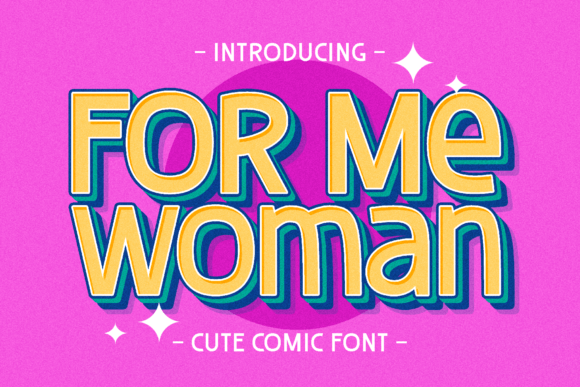
Discover the Vibrant World of For Me Woman Font: A Fun Display Font with Eastern European Flair
Are you looking for a font that exudes joy, fun, and excitement? Look no further than For Me Woman, a very fun display font designed by 7ntypes. This charming font is perfect for conveying a youthful appeal, making it an ideal choice for children’s books, comic books, and attention-grabbing titles. In this article, we’ll dive into the world of For Me Woman Font and explore its unique characteristics, features, and uses.
Key Features of For Me Woman Font
- Eastern European Authenticity: For Me Woman Font is accentuated with elements of Eastern European authenticity, giving it a unique and distinctive look.
- Bold and Bold Textures: This font features bold, bold textures that make it perfect for conveying joy, fun, and excitement.
- Youthful Appeal: The font’s design exudes a youthful appeal, making it perfect for children’s books, comic books, and other projects targeting a young audience.
- Unique Characteristics: For Me Woman Font has a distinctive look that sets it apart from other fonts, making it a top choice for bold, attention-grabbing titles.
Creative Uses for For Me Woman Font
For Me Woman Font is a versatile font that can be used in a variety of creative projects. Here are some ideas to get you started:
- Children’s Books: The font’s youthful appeal makes it perfect for children’s books, educational materials, and other projects targeting a young audience.
- Comic Books: For Me Woman Font is ideal for comic books, graphic novels, and other projects that require a bold, attention-grabbing font.
- Book Covers: Use For Me Woman Font to stylize your book cover and make it stand out from the crowd.
- Posters and Flyers: The font’s bold textures and youthful appeal make it perfect for creating eye-catching posters and flyers.
Benefits of Using For Me Woman Font
For Me Woman Font offers a range of benefits that make it an attractive choice for designers and creatives. Here are some of the advantages of using this font:
- Attention-Grabbing: The font’s bold textures and unique characteristics make it perfect for grabbing attention and drawing the reader in.
- Versatile: For Me Woman Font can be used in a variety of creative projects, from children’s books to comic books and posters.
- Easy to Read: Despite its bold textures, For Me Woman Font is easy to read, making it perfect for body text and headings.
- Unique Look: The font’s distinctive look sets it apart from other fonts, giving your project a unique and memorable style.
Spotlight on 7ntypes: The Designer Behind For Me Woman Font
For Me Woman Font was designed by 7ntypes, a talented font designer with a passion for creating unique and creative typefaces. With a focus on delivering high-quality fonts that meet the needs of designers and creatives, 7ntypes has established itself as a leading font foundry.
7ntypes’ design style is characterized by a focus on bold, attention-grabbing fonts with a youthful appeal. For Me Woman Font is just one example of the designer’s skill and creativity, and it’s clear that they have a deep understanding of what makes a font successful.
Pairing For Me Woman Font with Other Fonts
For Me Woman Font can be paired with a range of other fonts to create a unique and visually appealing design. Here are some font pairing suggestions:
- Open Sans: This clean and modern sans-serif font pairs well with For Me Woman Font, creating a nice contrast between bold and clean.
- Lato: This elegant sans-serif font complements For Me Woman Font’s bold textures, creating a sophisticated and modern look.
- Merriweather: This classic serif font pairs well with For Me Woman Font, creating a nice contrast between traditional and modern.
For Me Woman Font is a fun and versatile display font that’s perfect for conveying joy, fun, and excitement. With its Eastern European authenticity, bold textures, and youthful appeal, this font is ideal for a range of creative projects, from children’s books to comic books and posters. Whether you’re a designer, creative, or DIY enthusiast, For Me Woman Font is a great choice for adding a unique and memorable style to your project.